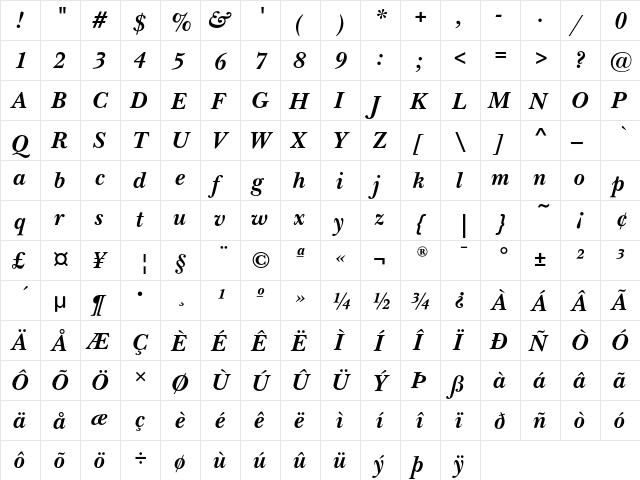
NewBaskervilleEF BoldItalic
Design Context for NewBaskervilleEF Typeface
NewBaskervilleEF takes a measured approach to typography — its balanced proportions and neutral character make it a reliable workhorse for both digital and print work. The dynamic lean of this cut emphasises speed and emphasis in any layout. The heavy weight commands attention and anchors typographic hierarchies.
Pro Tip: Try NewBaskervilleEF for annotation and caption copy alongside an upright companion — the contrast in angle creates a dynamic but ordered typographic system.